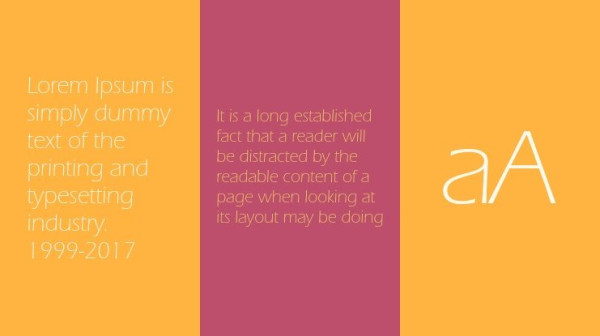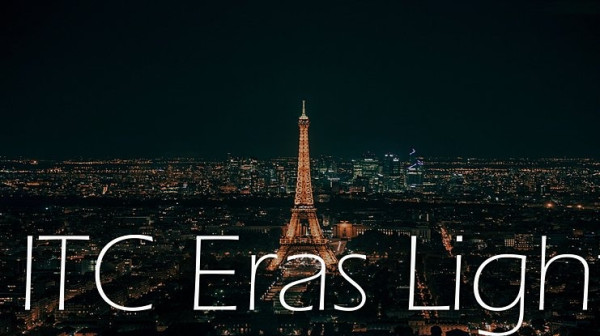
ITC Eras Font
ITC Eras font is the work of French designers Albert Boton and Albert Hollenstein. It is a typical sans serif typeface distinguished by its unusual slight forward slant and subtle variations in stroke weight. ITC Eras is an open and airy typeface inspired by both Greek stone-cut lapidary letters as well as Roman capitals.